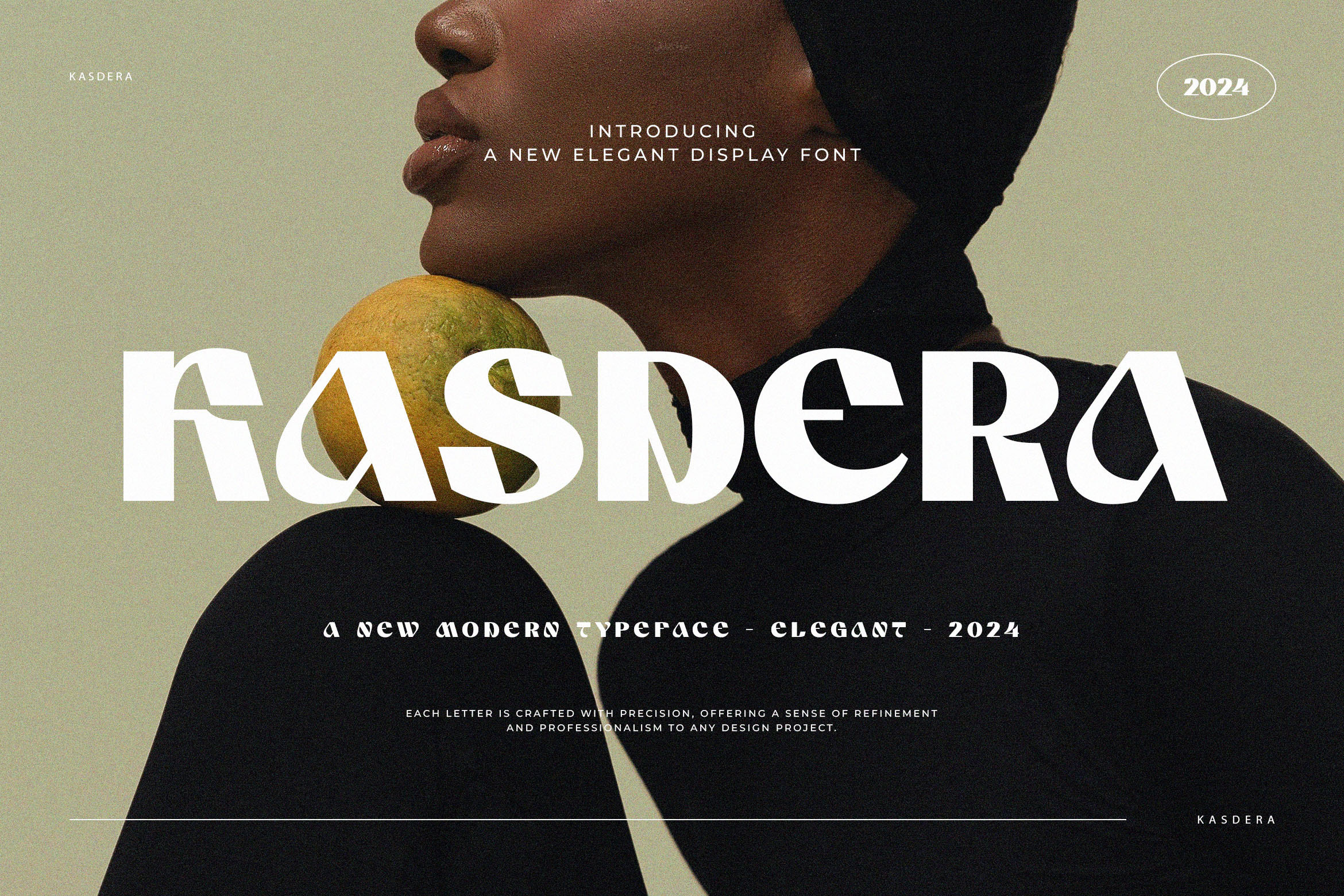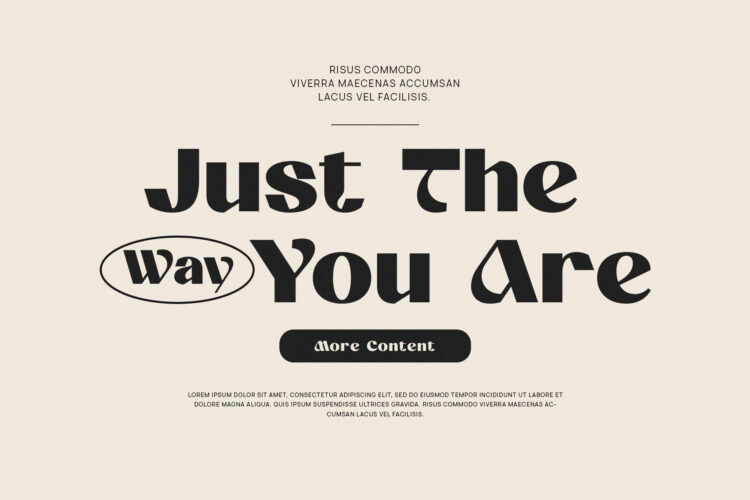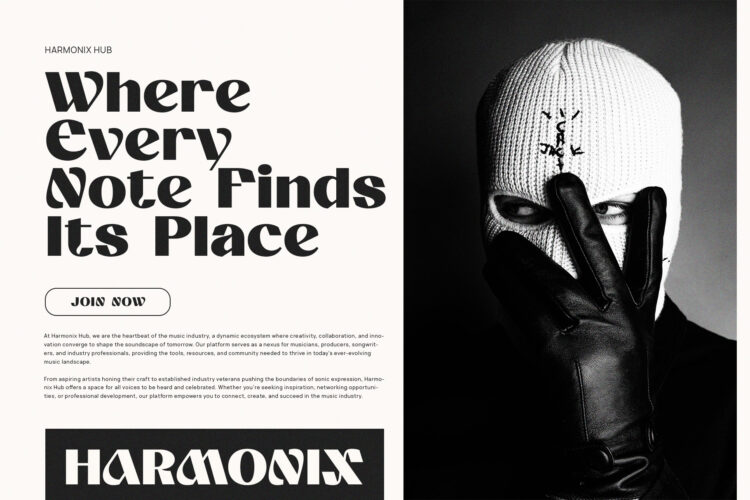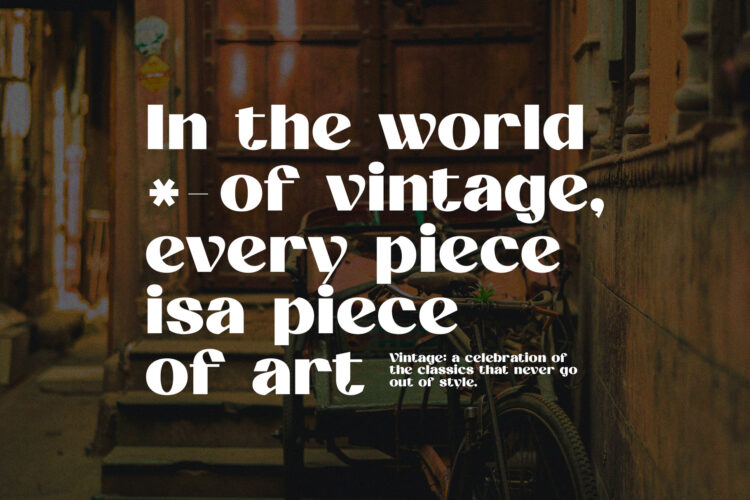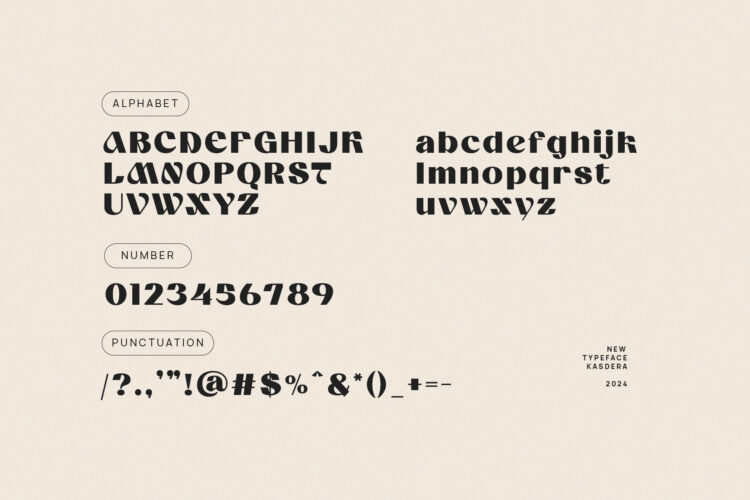
Introducing Kasdera – Elegant Display Sans Serif.
Kasdera is a modern and simple font, best used as a display for headings, logos, branding, magazines, product packaging and invitations.